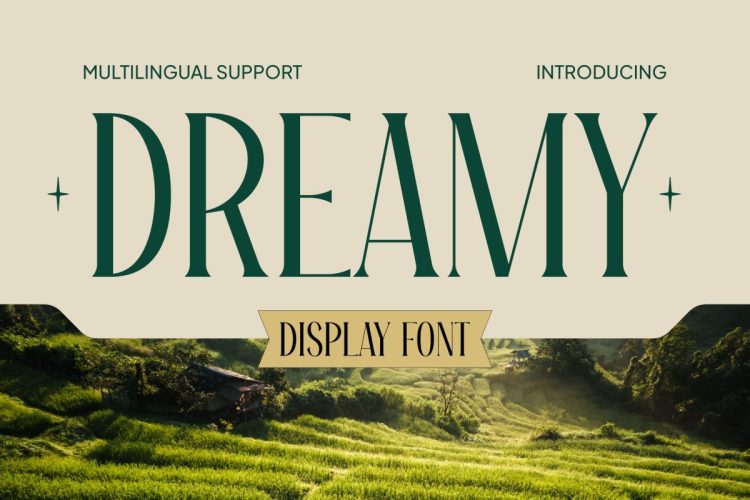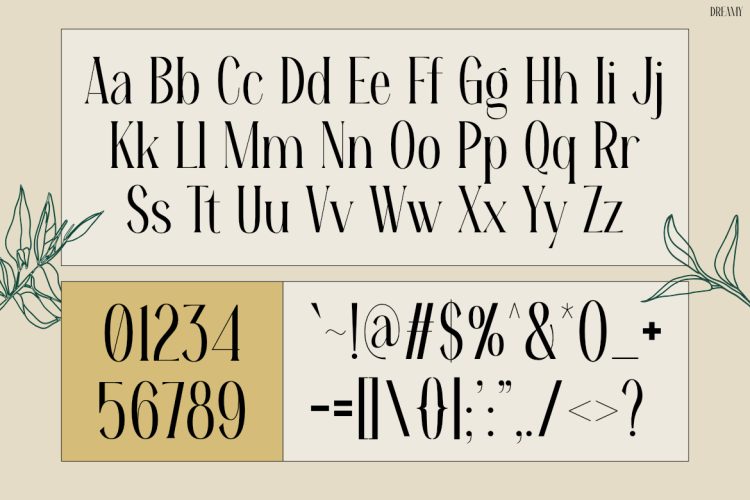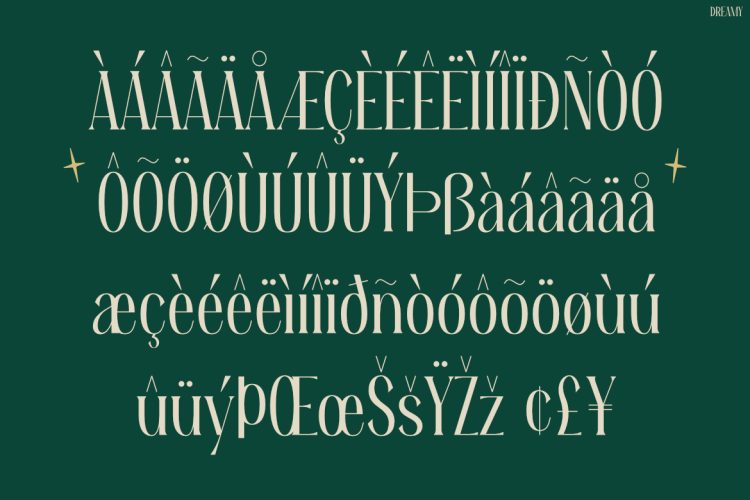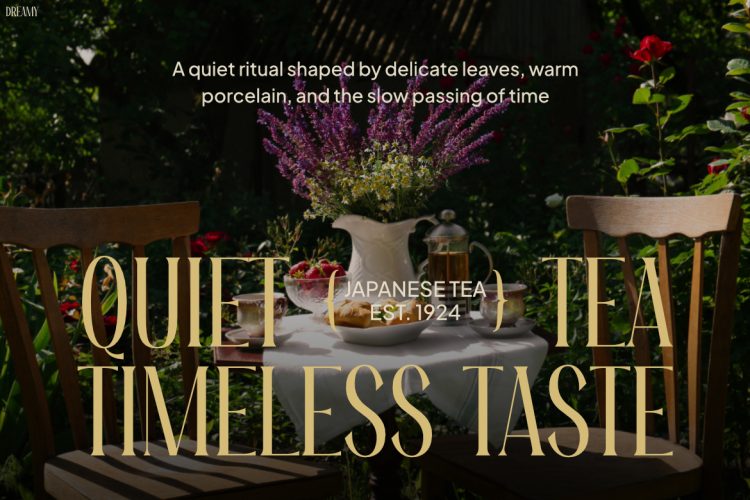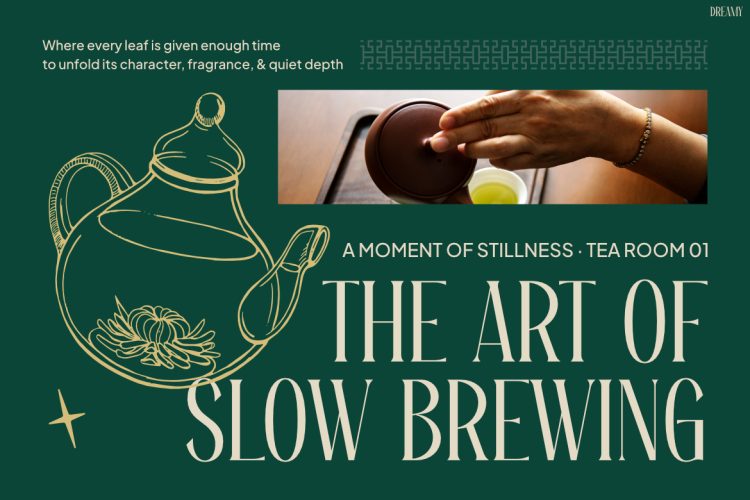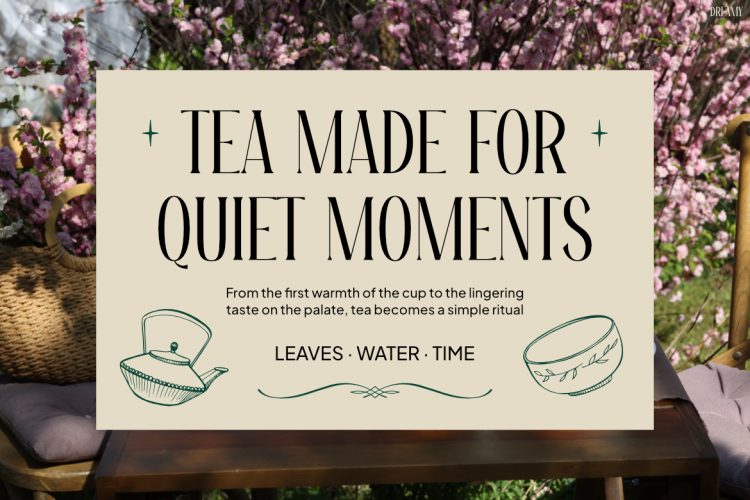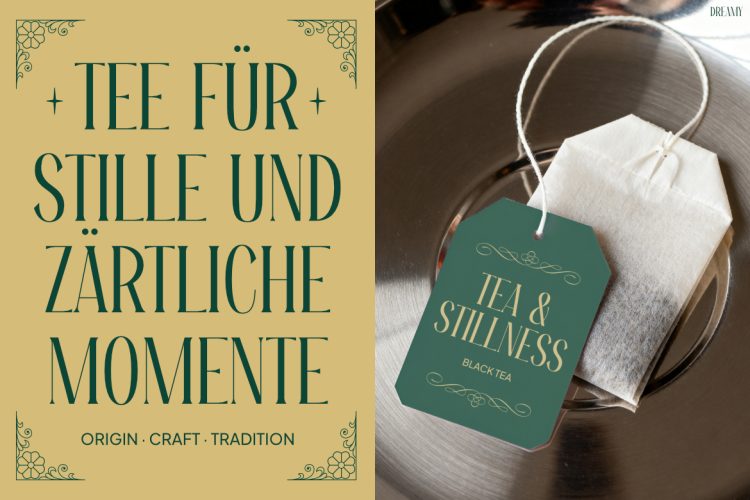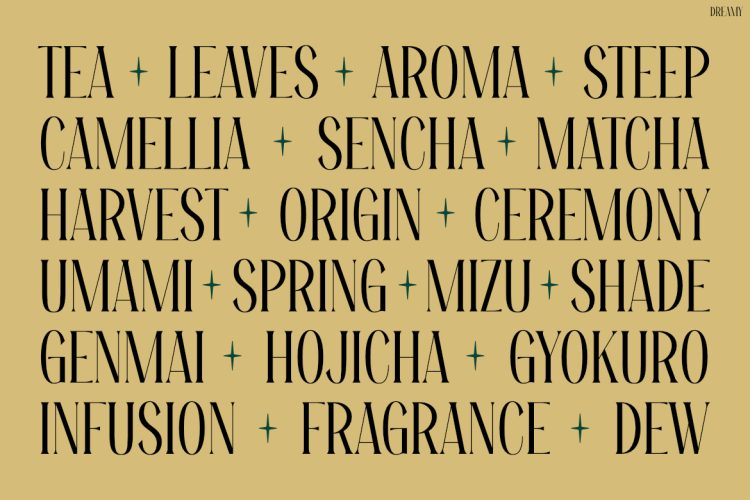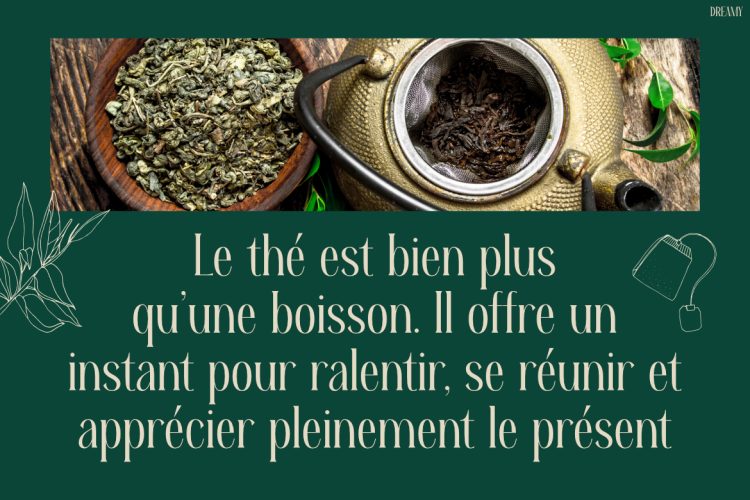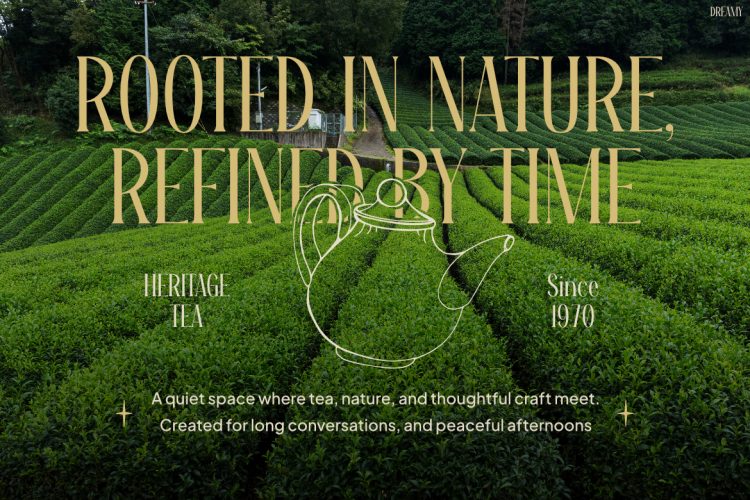
DREAMY โ Elegant Botanical Display Font
Instagram Font Dreamy brings a graceful, nature-inspired style to your designs. Its tall and slender letters create an elegant editorial look. Meanwhile, delicate details add a soft and artistic character. As a result, Dreamy feels stylish, calm, and naturally eye-catching.
Elegant Style with a Natural Touch
Furthermore, Dreamy blends classic typography with a modern display style. Its narrow letters work beautifully with photos and botanical artwork. In addition, earthy colors and minimal layouts complement its aesthetic. The font also supports 67 languages. Therefore, it works well for both local and international projects.
Instagram Font Dreamy Perfect For
For example, Dreamy suits Instagram posts, logos, branding, and packaging. It also works for tea labels, coffee brands, and wellness products. Moreover, you can use it for beauty projects and fashion graphics. Editorial layouts, posters, menus, and invitations are also great choices. Likewise, Instagram Font Dreamy adds personality to book covers and lifestyle content.